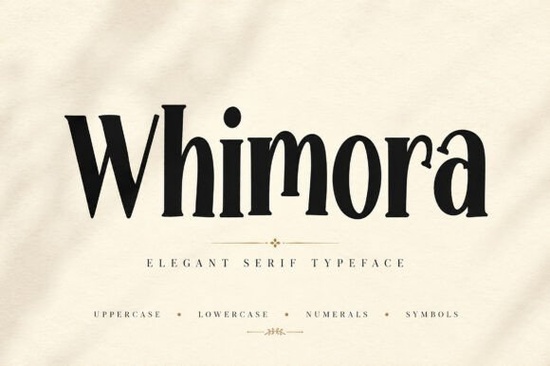
When it comes to choosing the right font for your design projects, finding one that combines elegance and readability is key. The Whimora Font stands out as a refined and elegant serif typeface that brings a touch of sophistication and luxury to any design. Whether you're working on high-end branding, fashion editorials, or wedding invitations, Whimora offers a modern and stylish option.
Why Choose Whimora for Your Design Projects?
Whimora is designed with versatility in mind, making it suitable for a wide range of creative applications. Its graceful curves and stylish contrast add a luxurious aesthetic while maintaining excellent readability. This makes it perfect for creating elegant headlines, stylish social media content, and premium product packaging. Here are some specific use cases where Whimora can shine:
- Luxury Branding: Add a touch of class and refinement to your brand identity.
- Fashion Editorials: Create chic and sophisticated magazine layouts.
- Wedding Invitations: Craft elegant and memorable invitations for special occasions.
- Beauty & Cosmetic Packaging: Enhance the visual appeal of beauty products with a premium look.
- Jewelry Branding: Elevate your jewelry designs with a font that exudes luxury.
- Social Media Templates: Design eye-catching and stylish social media posts.
- Business Cards: Make a lasting impression with professional and elegant business cards.
- Product Labels: Add a polished and upscale touch to your product labels.
- Magazine Headlines: Create standout and visually appealing headlines.
- Elegant Logos: Develop logos that are both classy and memorable.
What’s Included in Whimora Font?
Whimora comes with a comprehensive set of characters, including:
- Uppercase Letters: Perfect for creating bold and impactful headings.
- Lowercase Letters: Ideal for adding a more subtle and elegant touch to your text.
- Numbers & Punctuation: Everything you need to create complete and professional designs.
This versatile set of characters ensures that you have all the tools you need to bring your design vision to life, whether you're working on a small project or a large-scale campaign.
How Does Whimora Compare to Other Serif Fonts?
While there are many serif fonts available, Whimora stands out for its unique blend of modern elegance and traditional sophistication. If you’re looking for a similar font, you might also consider Typrighter, which offers a different but equally refined style. Both fonts are excellent choices depending on the specific look and feel you want to achieve.
Tips for Using Whimora in Your Designs
To get the most out of Whimora, here are some practical tips:
- Pair Wisely: Combine Whimora with a clean sans-serif font for a balanced and modern look. For example, you could pair it with a font like Roboto.
- Use for Headings: Whimora works exceptionally well for headlines and titles, where its elegant style can make a strong visual impact.
- Test Readability: While Whimora is highly readable, always test it with your specific content to ensure it works well for your audience.
- Experiment with Sizes: Play around with different font sizes to find the best fit for your design. Larger sizes can emphasize the font's elegance, while smaller sizes can still maintain readability.
By following these tips, you can effectively incorporate Whimora into your design projects and create a polished, upscale look that resonates with your audience.
Next Steps for Designers
If you’re ready to start using Whimora in your next design project, here’s a quick checklist to help you get started:
- Brainstorm Use Cases: Think about the specific projects where Whimora would be most effective, such as branding, editorial designs, or social media content.
- Create Mockups: Start by creating mockups to see how Whimora looks in different contexts and with various color schemes.